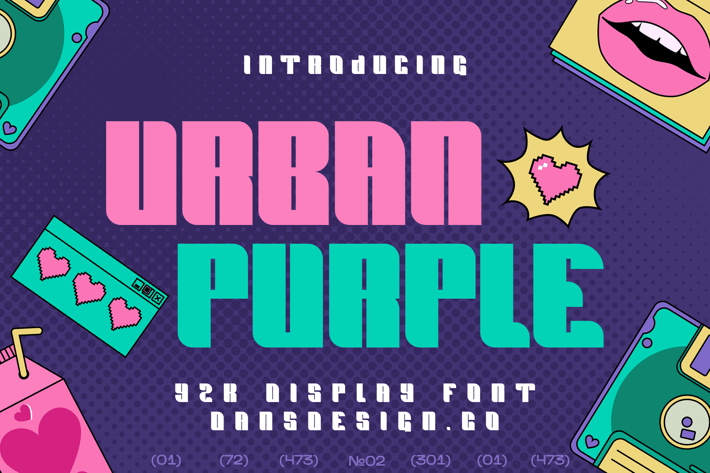
Urban Purple Modern Display Sans Serif Y2k Font
Urban Purple Modern Display Sans Serif Y2k Font Font a distinct, highly detailed. GRAFFITI Display Font.
It would make a great choice for exquisite retro-urban designs, business branding, logos, Apparel designs, and more.